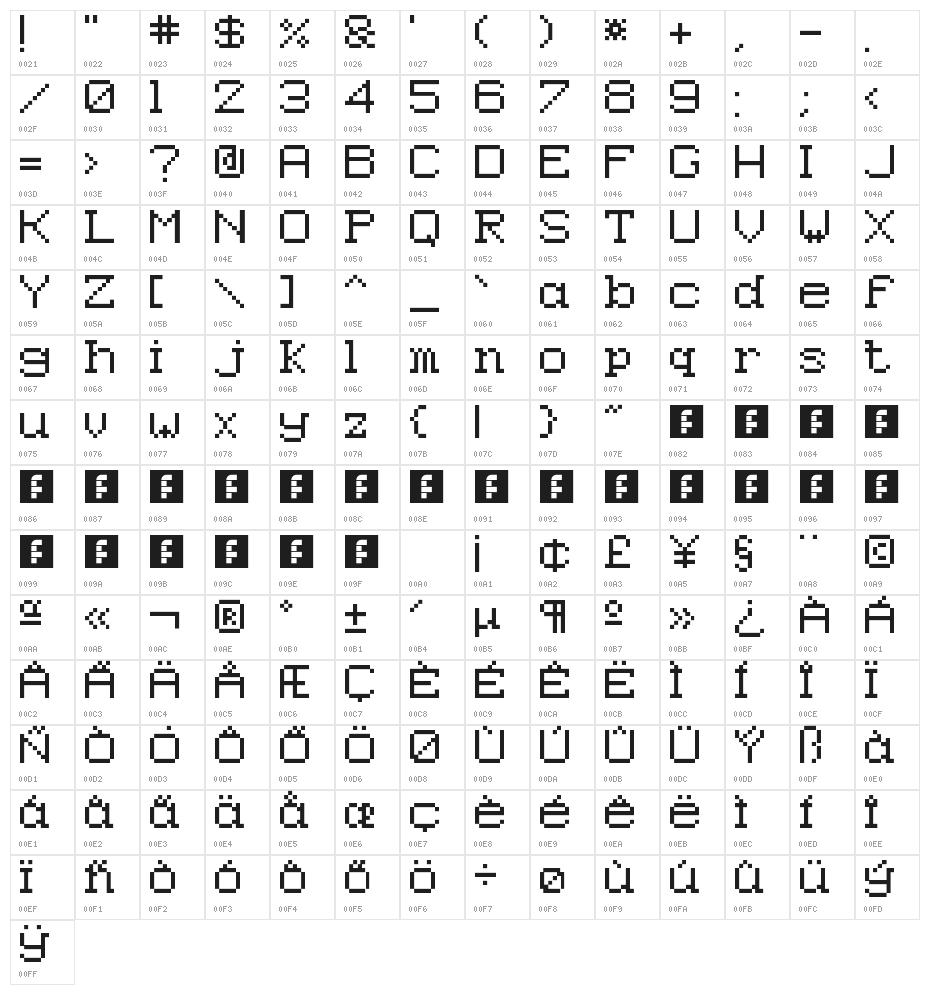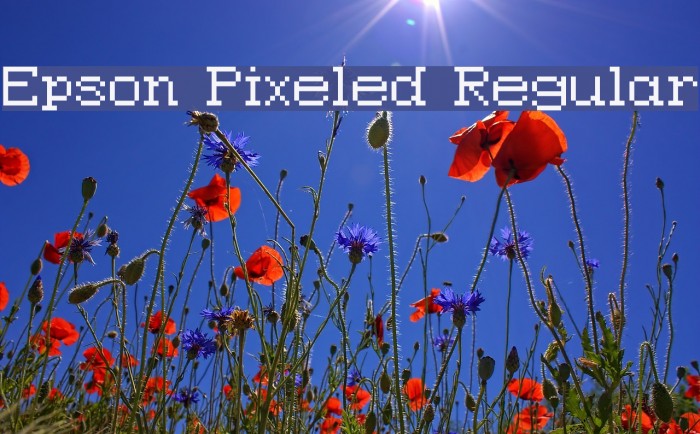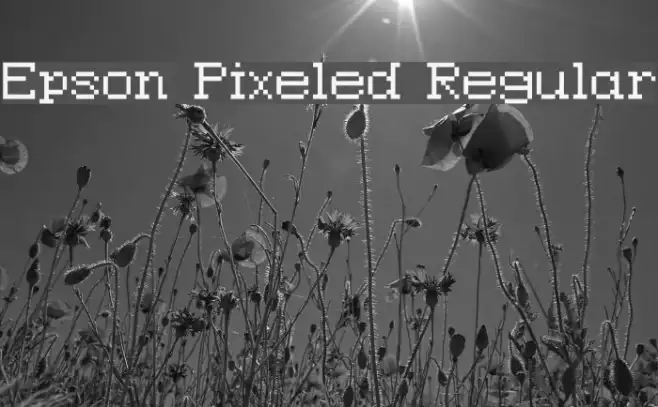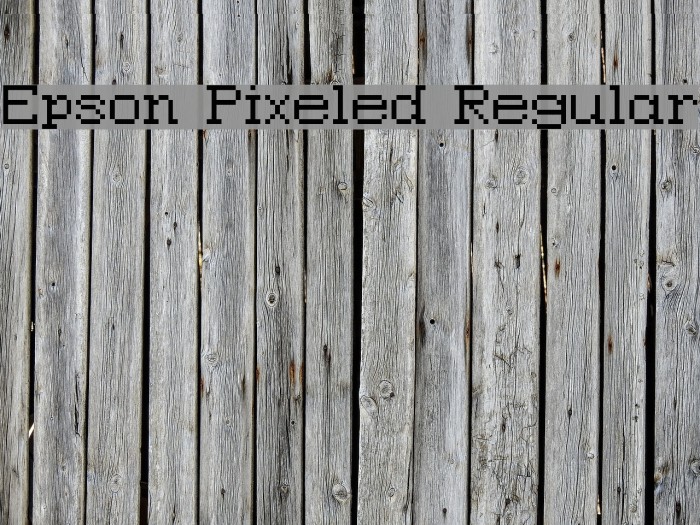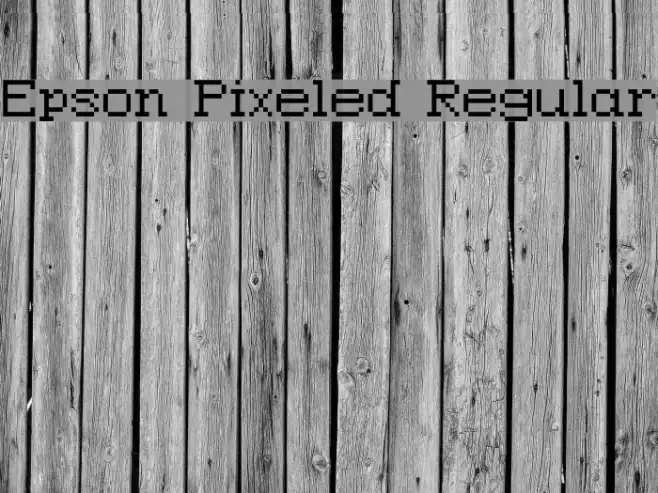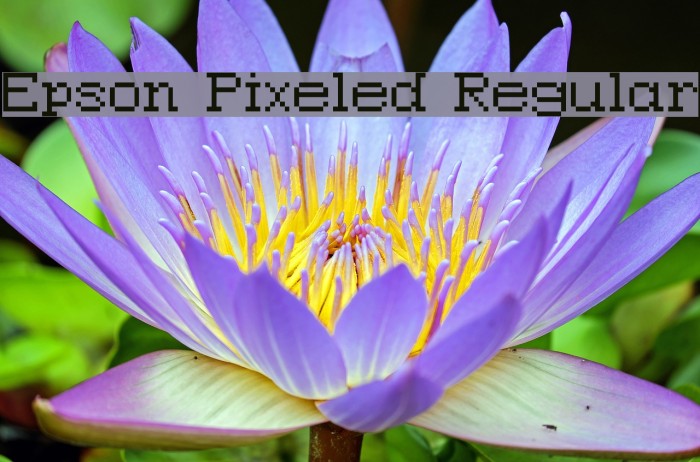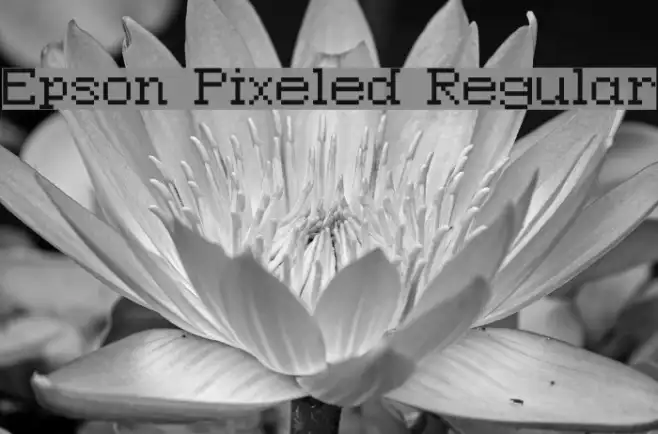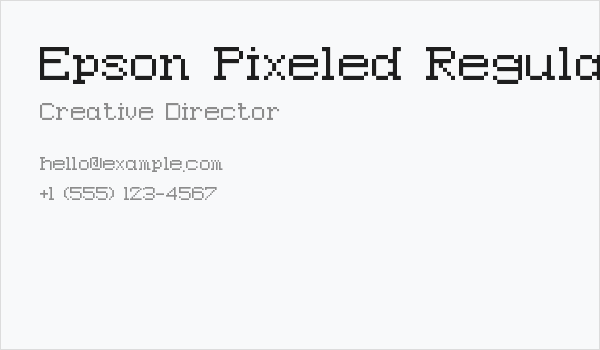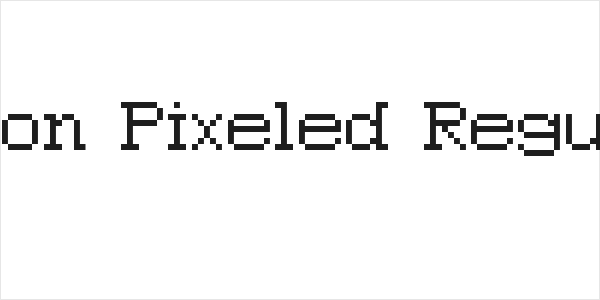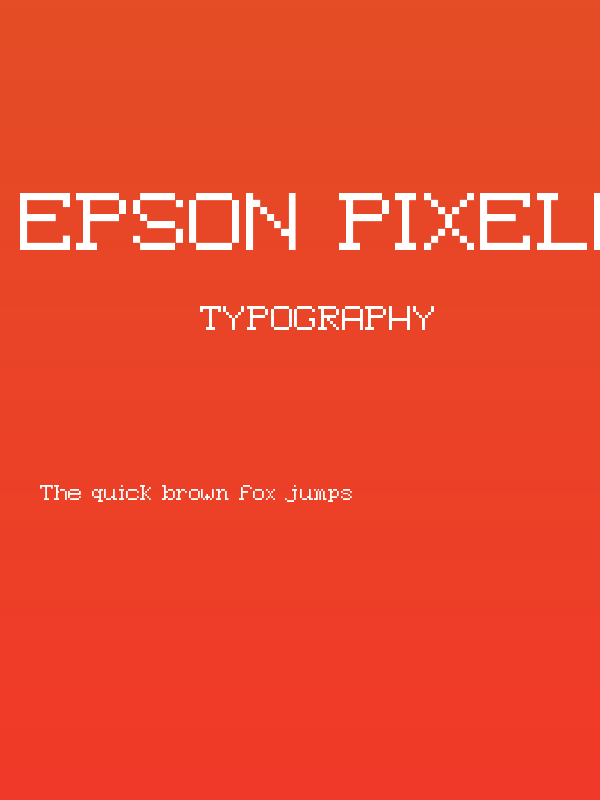
Epson Pixeled Regular Font
Epson Pixeled Regular Description
This font features a distinct pixelated style, reminiscent of early digital displays and retro video games. Each character is constructed with a grid-like precision, giving it a blocky, geometric appearance. The uppercase and lowercase letters maintain a consistent height, contributing to a uniform look across the text. The numerals and special characters follow the same pixelated design, ensuring cohesion throughout. This font's nostalgic aesthetic makes it ideal for projects that aim to evoke a sense of vintage digital technology or retro gaming culture.
| Use Case | Logos, Headlines, Digital Art |
| Proposed Projects | Ideal for retro video game graphics, digital art projects, tech-themed designs, and nostalgic branding. |